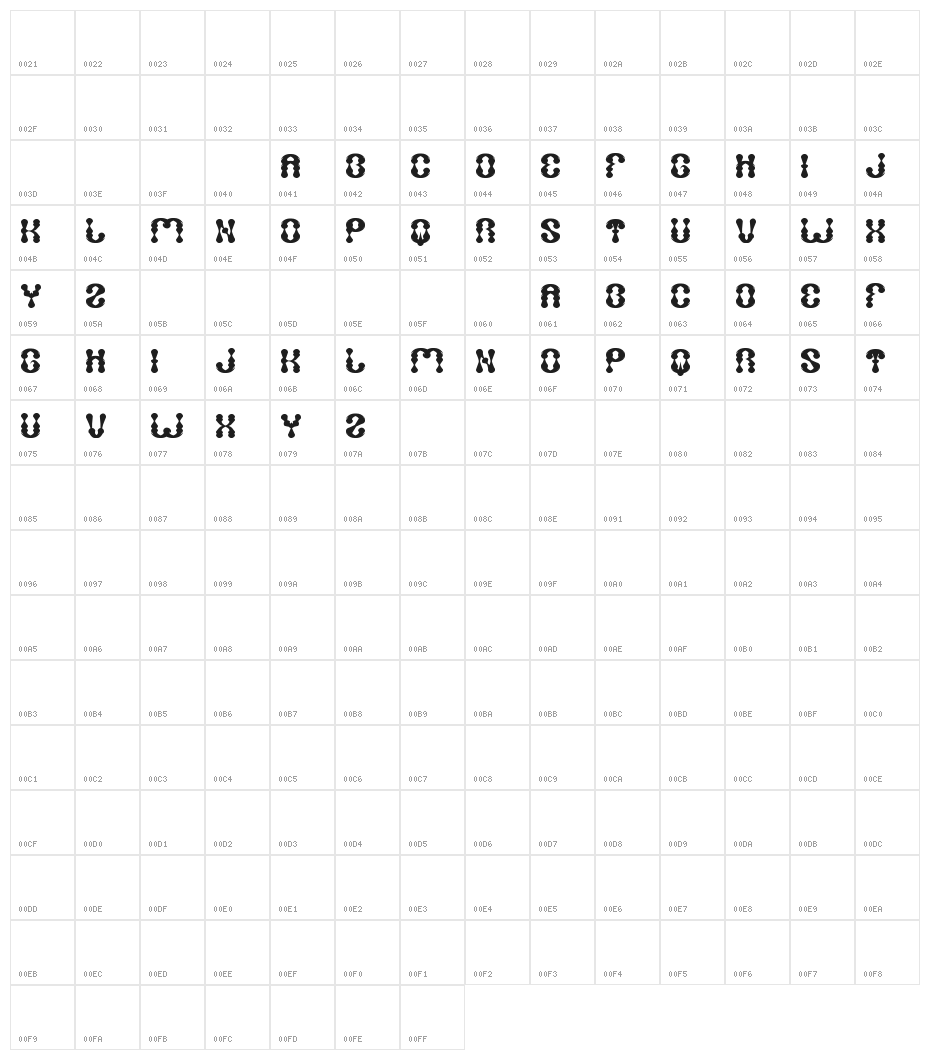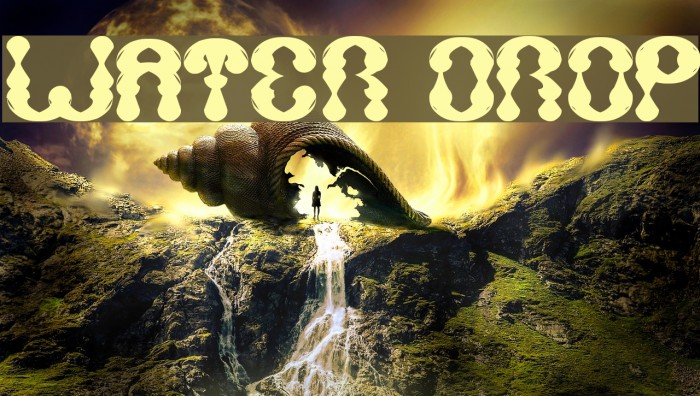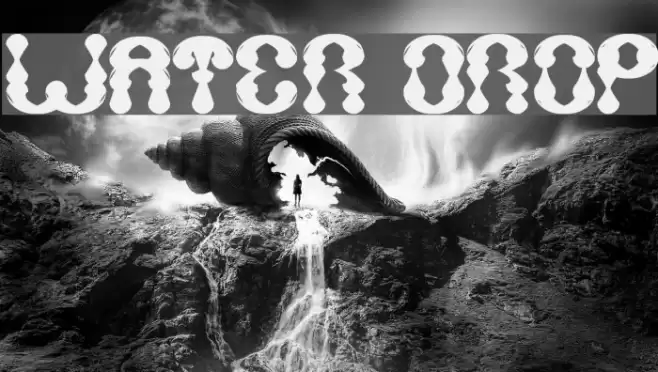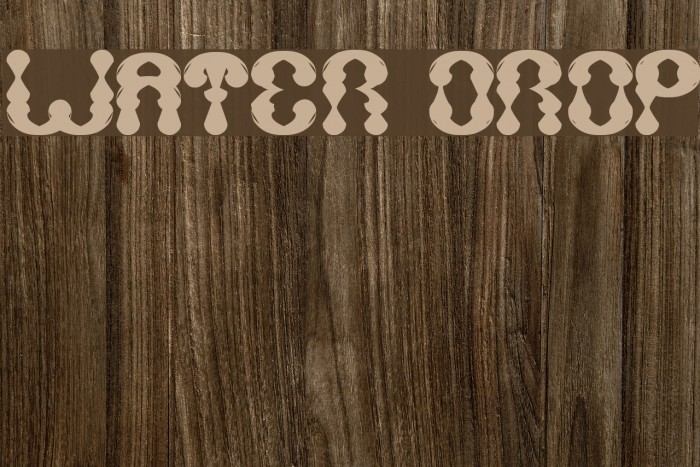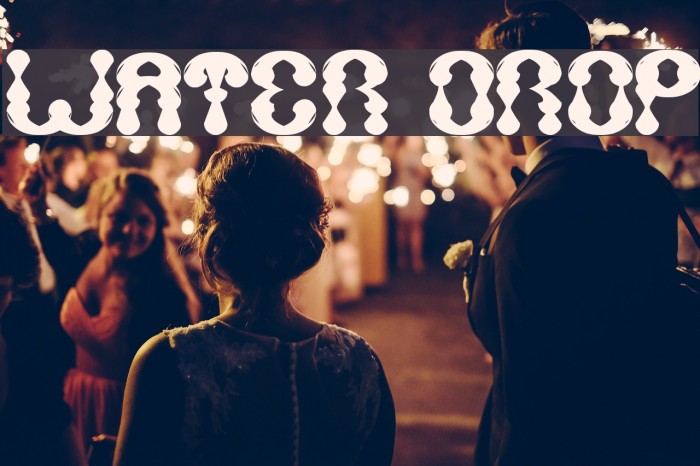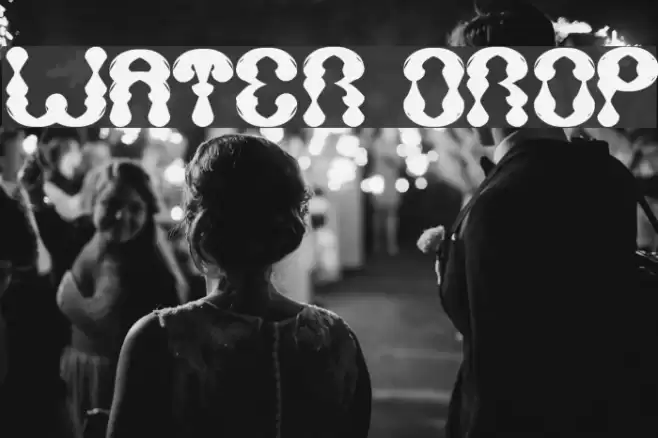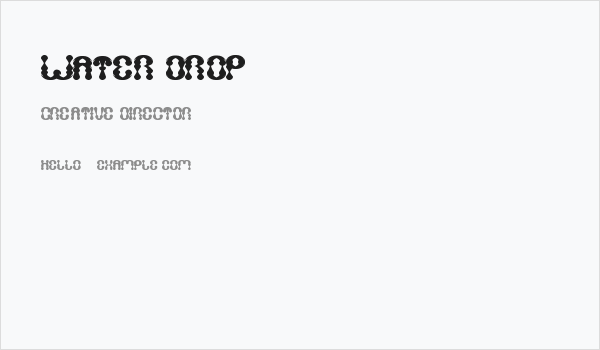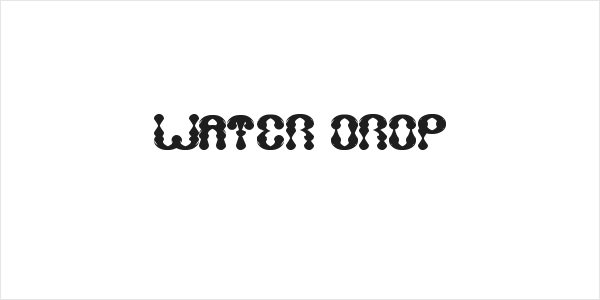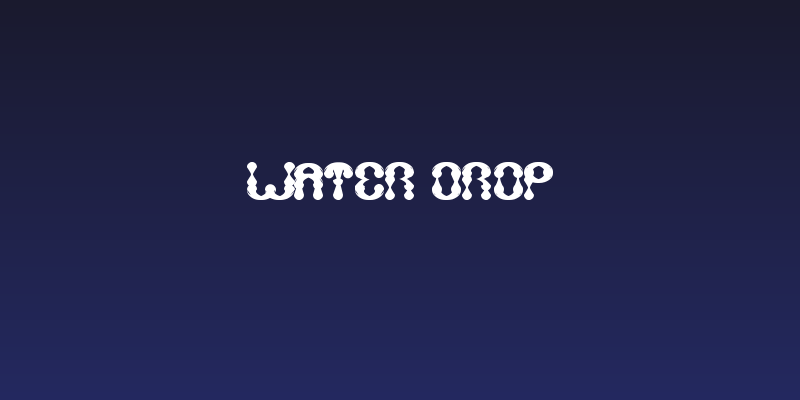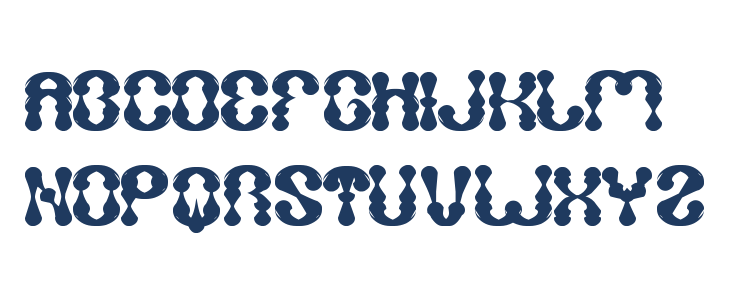
water drop Font
water drop Description
This font features a unique and playful design, characterized by its bold, rounded shapes that resemble droplets of water. The letters are formed with thick strokes that create a sense of fluidity and movement, making it visually striking and memorable. The overall appearance is decorative, with each character having a distinct, organic feel. The font's style is consistent across both uppercase and lowercase letters, maintaining its whimsical and artistic nature. It is particularly suitable for creative projects that require a touch of fun and originality.
| Use Case | Logos, Posters, Creative Branding |
| Proposed Projects | Ideal for creative branding, children's book covers, playful posters, and artistic logos. |